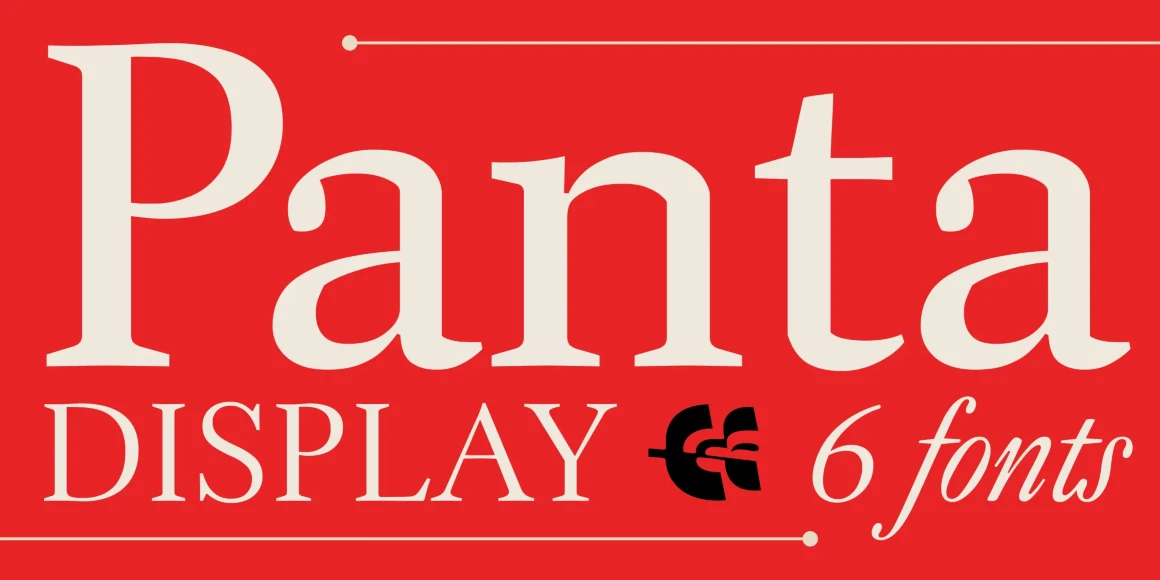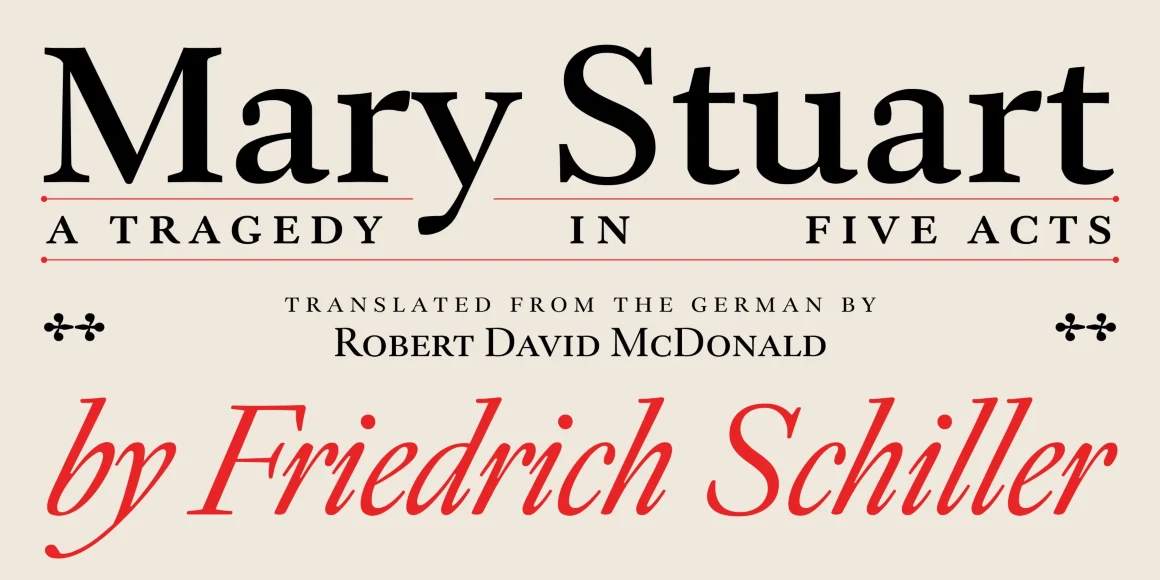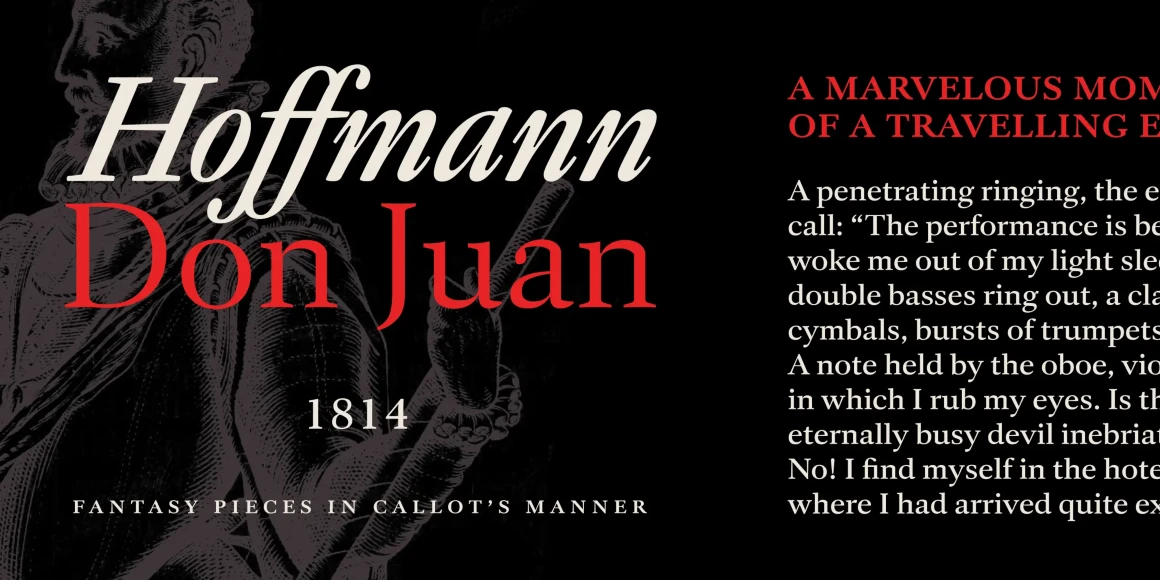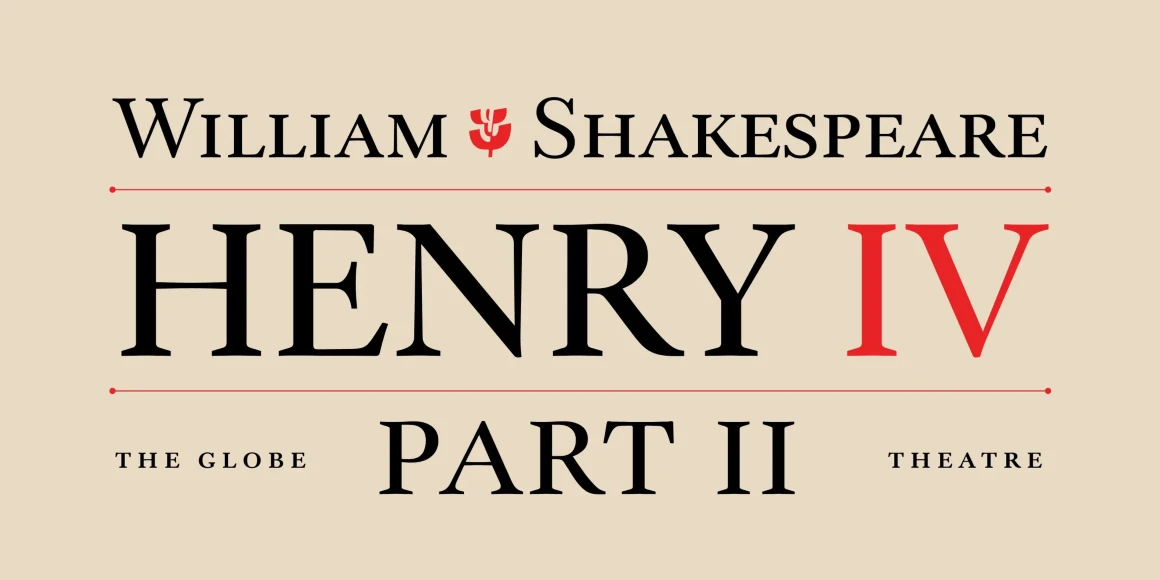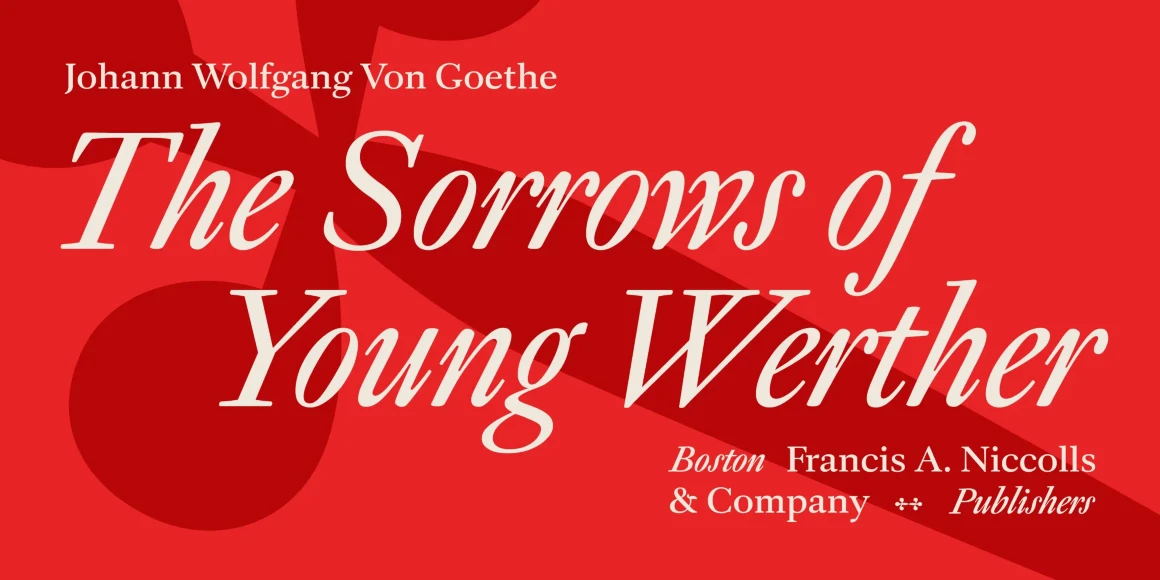
Panta Display
From Lipton Letter Design
Panta Display is a serif family inspired by W. A. Dwiggins’ hand-lettered book design for Gargantua & Pantagruel. The family carries a warm, literary, and confident mid-century spirit and is filled with typographic niceties such as small caps, old-style and lining figures, and dramatic italics. Shaped by subtle asymmetries and lively curves, Panta is a comfortable read in long-form books, but has the editorial style to work in magazines, where personality is welcomed.
Designed by Richard Lipton